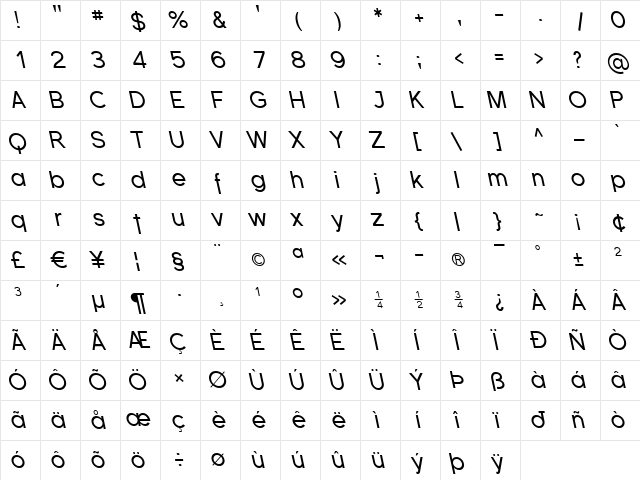
Florencesans Rev Italic
Design Context for Florencesans Rev Typeface
Florencesans Rev is a composed and adaptable typeface that performs quietly and consistently across a wide range of design contexts. Its italic angle brings a sense of urgency and motion to the letterforms.
Pro Tip: Use Florencesans Rev for emphasis, pull quotes, and subheadings where its slanted energy can add rhythm to the layout.